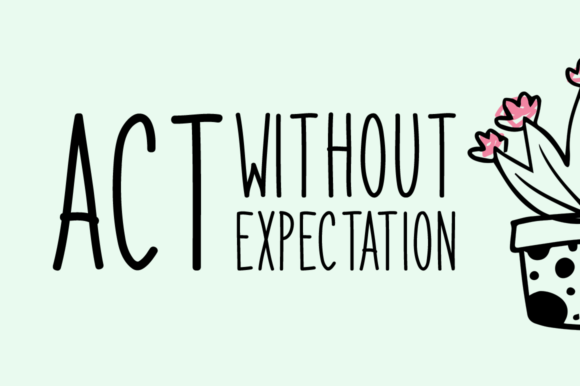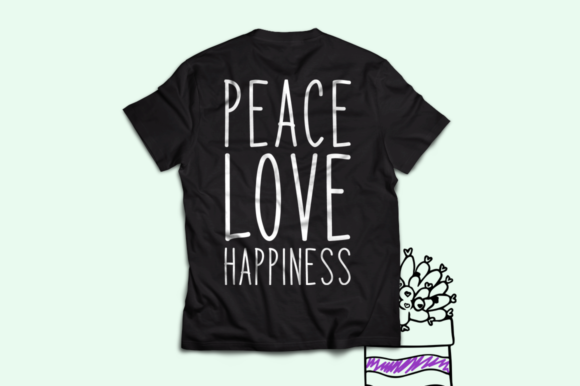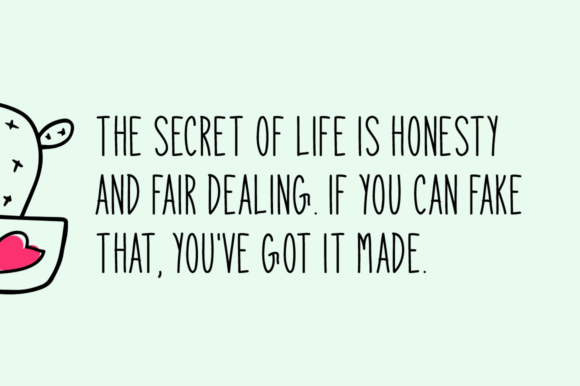
Introduction to Dokrak Font
Dokrak is a brand new handwritten font.
Dokrak is perfectly suited for stationery, logos, paper, print design, and much more .
Why Choose Dokrak Font?